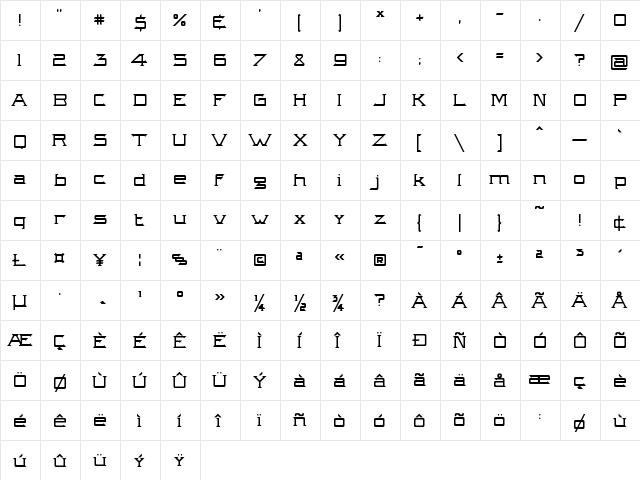
Intergalactik Airlines Light Regular
| Designer | imagex |
Design Context for Intergalactik Airlines Light Typeface
Intergalactik Airlines Light takes a measured approach to typography — its balanced proportions and neutral character make it a reliable workhorse for both digital and print work. The delicate stroke weight brings airiness and refinement to layouts.